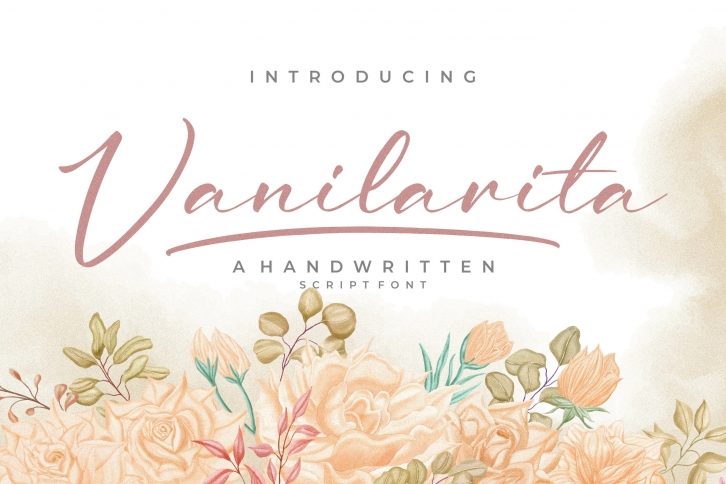
Vanilarita is a great font that was designed by Integritype Studio. Imagine the amount of combinations you can create using this font! The archive is 10.60 MB and it was released on September 17, 2021. Vanilarita looks beautiful on wedding invitations, greeting cards, logos, posters, labels, t-shirt designs, logos, business cards and is perfect for use in ink or watercolor works, fashion, magazines, packaging and food menus, children's books and more!